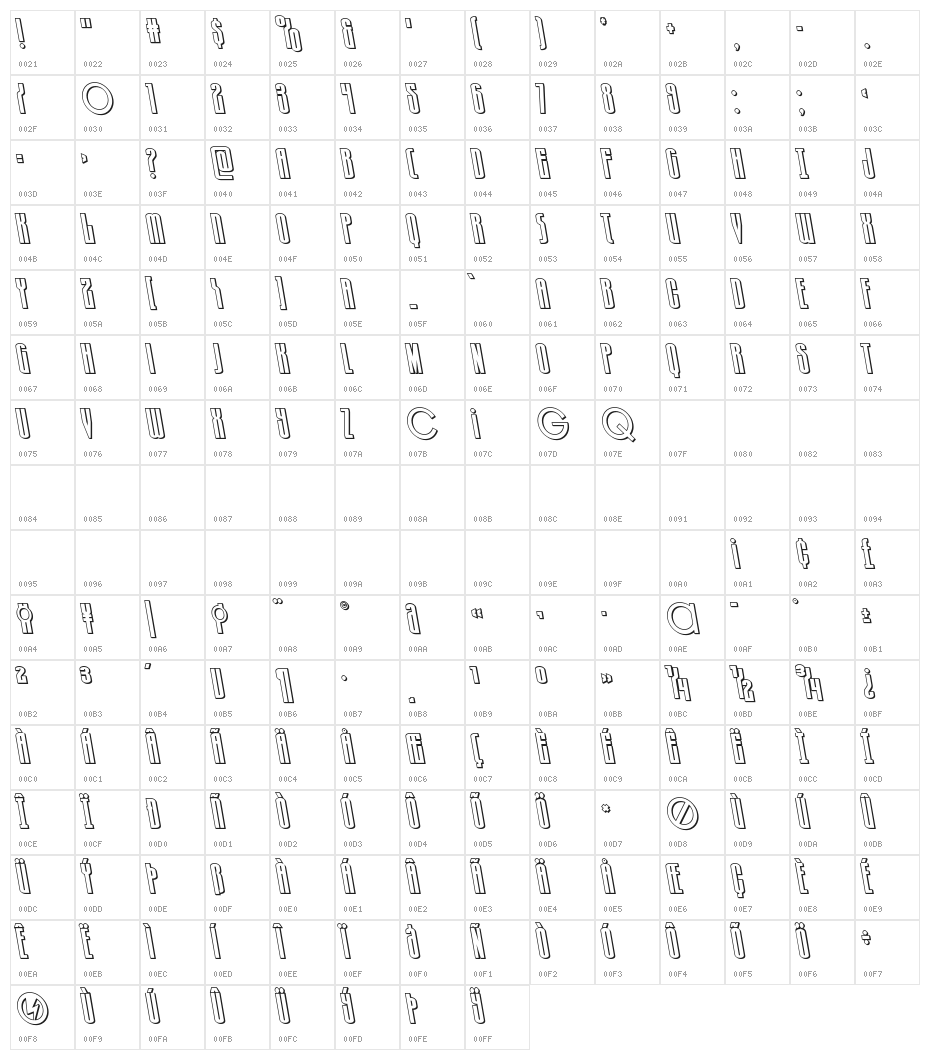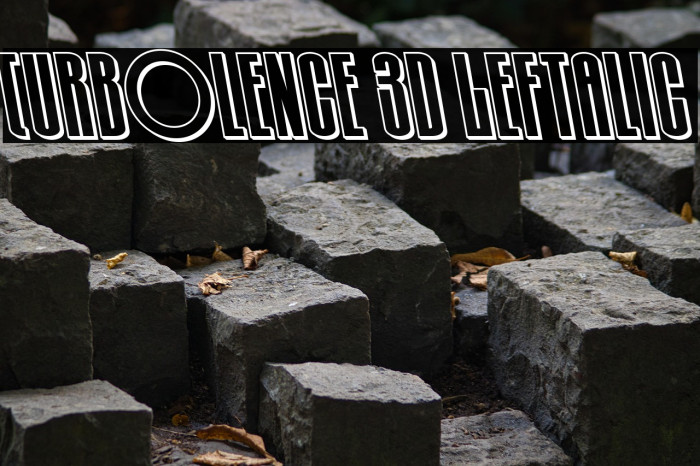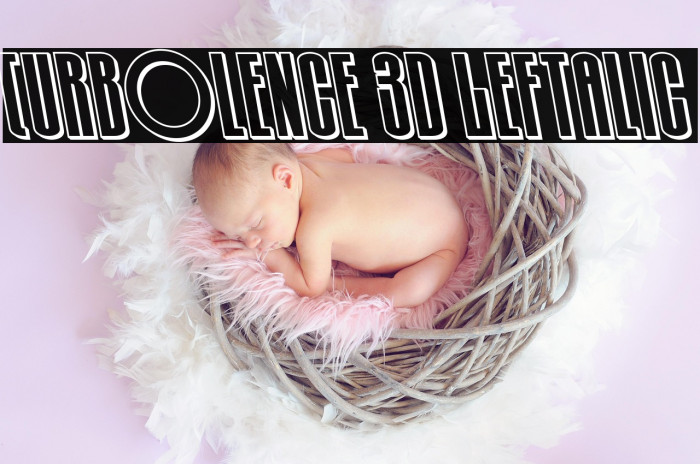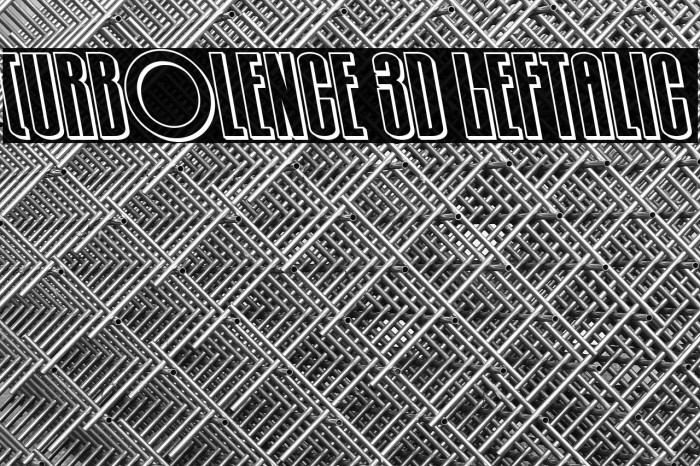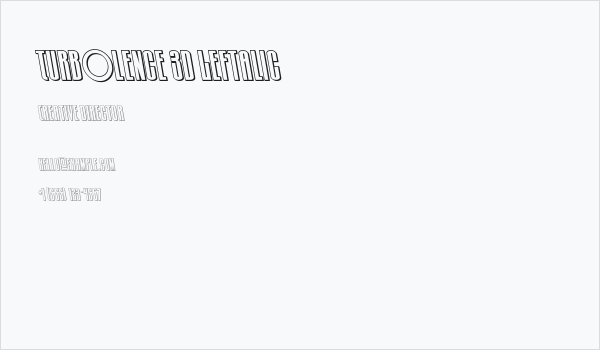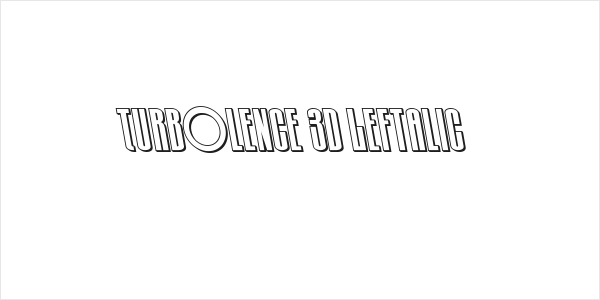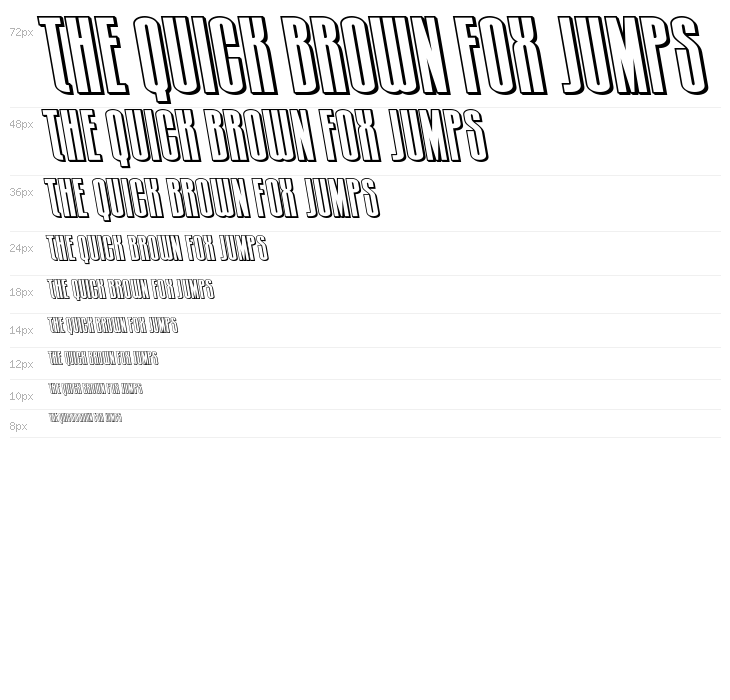
Turb0lence 3D Leftalic Font
Turb0lence 3D Leftalic Description
This font features a bold, three-dimensional effect with a leftward slant, giving it a dynamic and energetic appearance. The characters are outlined, creating a sense of depth and movement. The uppercase and lowercase letters maintain a consistent style, with sharp angles and clean lines. Numbers and special characters are designed to match the bold, impactful look of the alphabet. The overall design is modern and eye-catching, suitable for projects that require a strong visual impact.